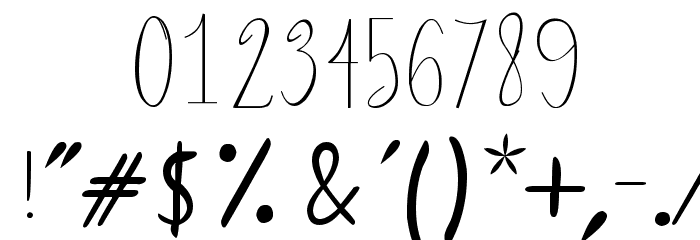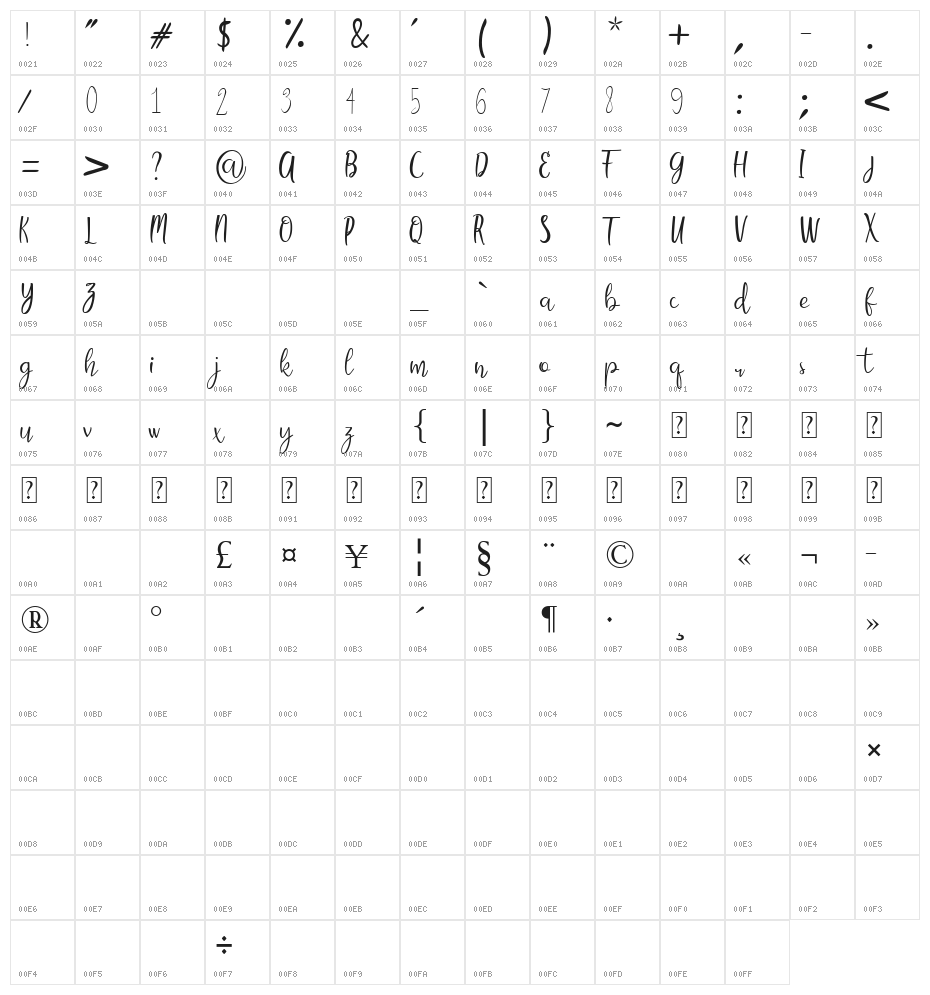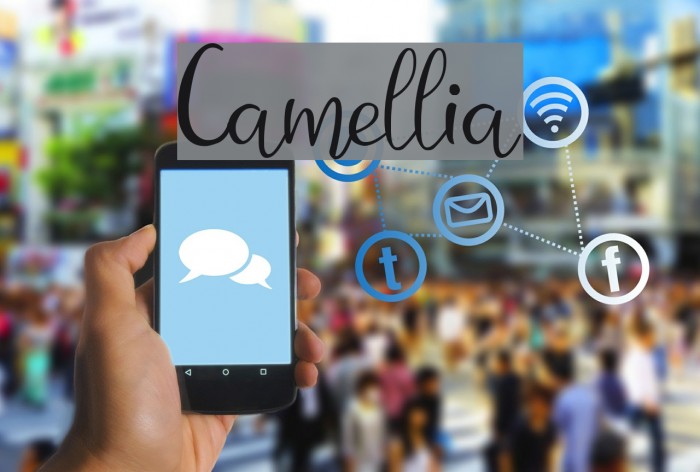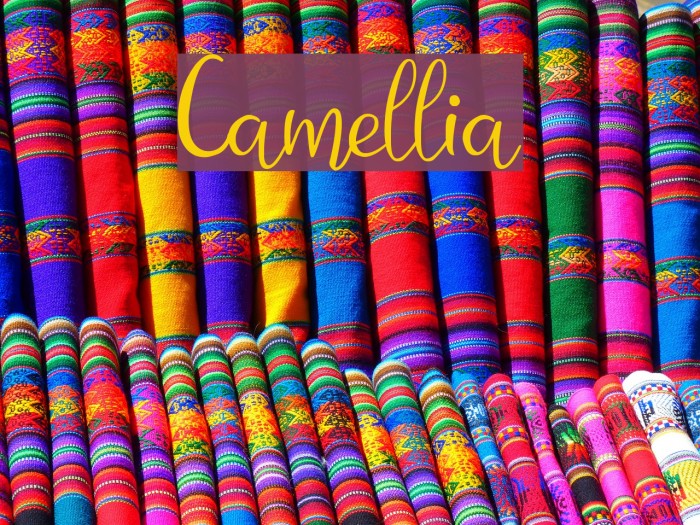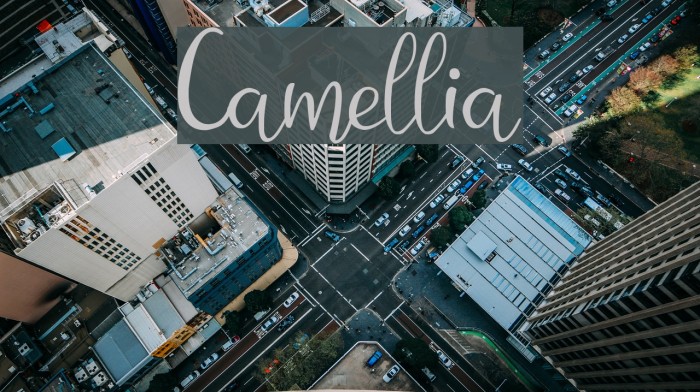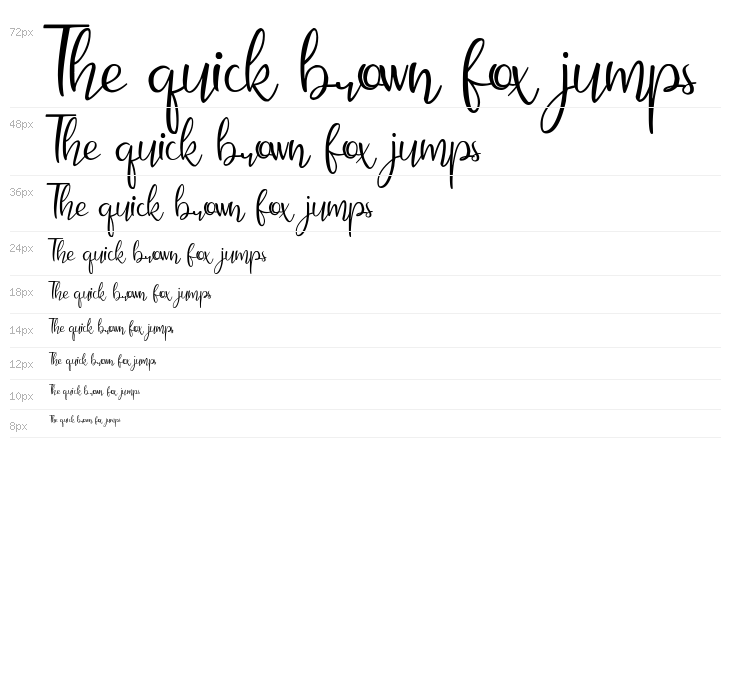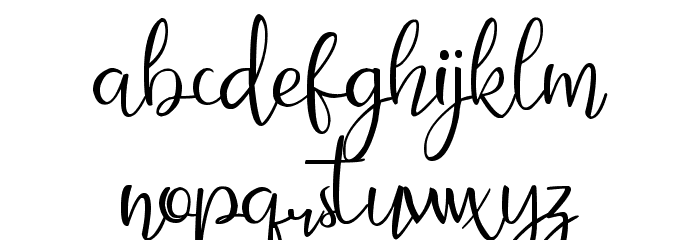
Camellia Font
Camellia Description
This font features a lively and elegant script style with a handwritten appearance. The uppercase letters are bold and flowing, with a slight slant that adds a dynamic feel. Lowercase letters maintain a consistent style, with smooth curves and loops that enhance readability. The numerals are slender and slightly taller, complementing the overall aesthetic. Special characters are crafted with the same attention to detail, ensuring they blend seamlessly with the letters and numbers. The font's playful yet sophisticated design makes it suitable for a variety of creative applications.